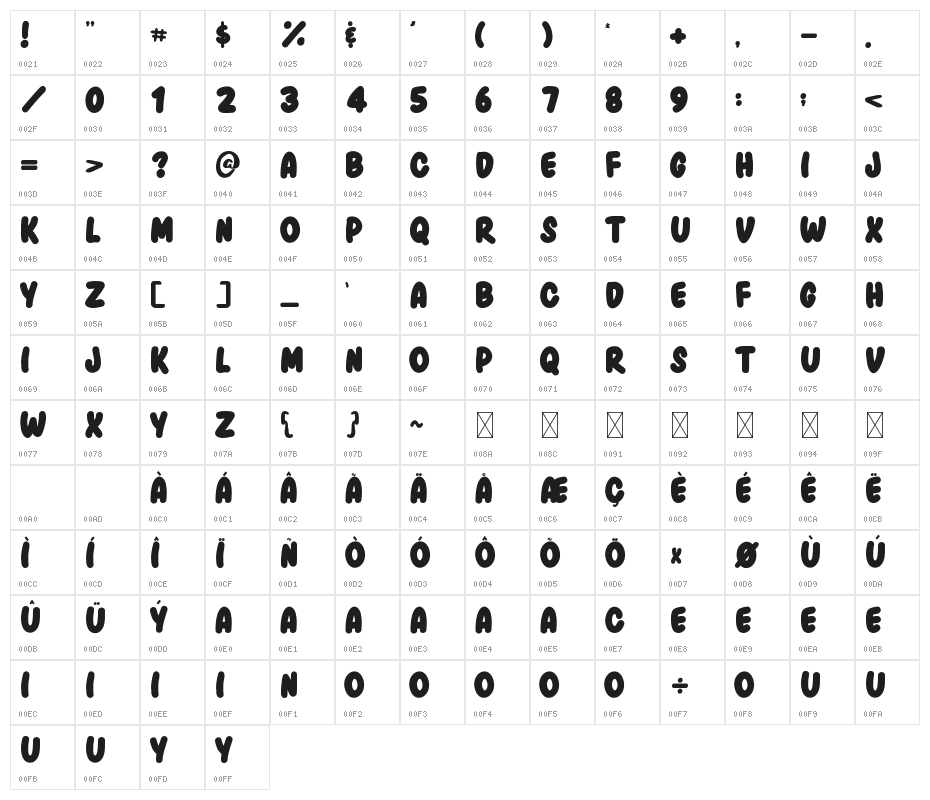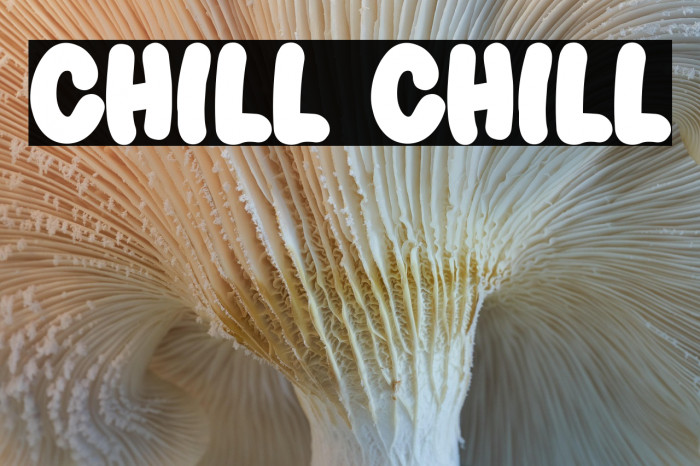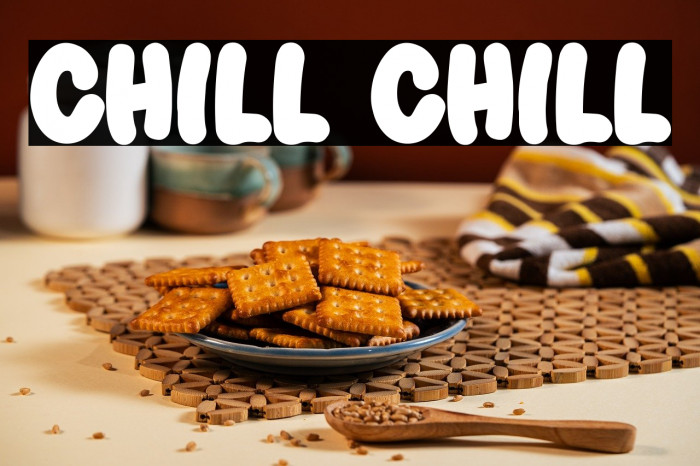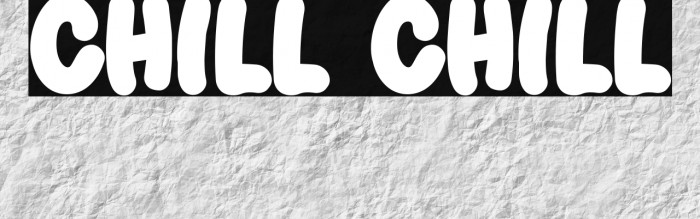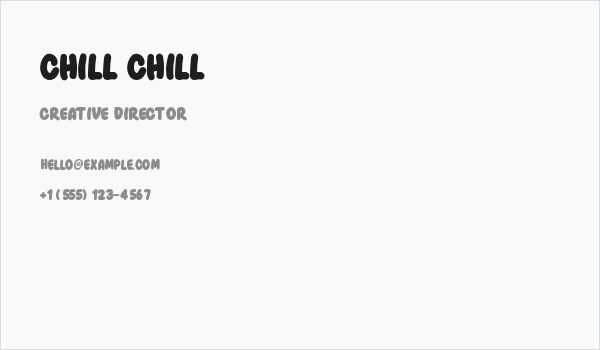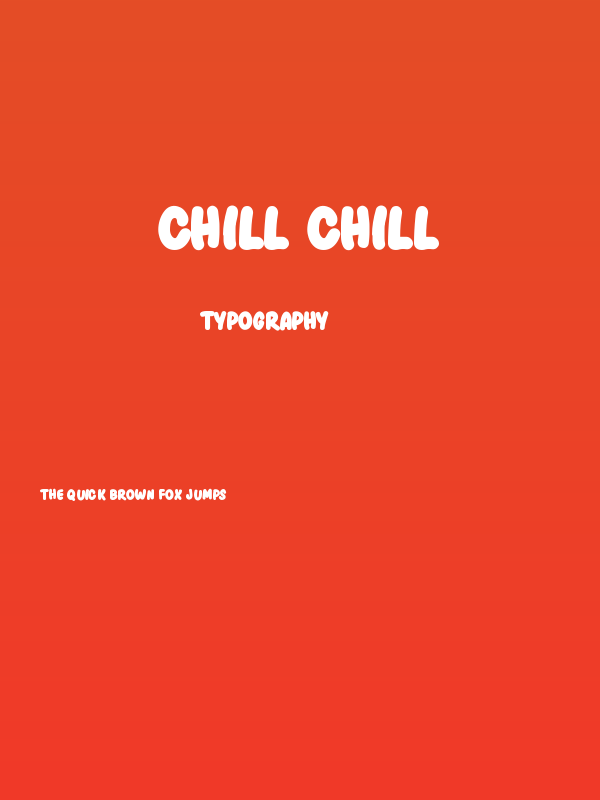
Chill Chill Font
Chill Chill Description
This playful and bold font features rounded, bubble-like characters that exude a sense of fun and whimsy. The letters are thick and uniform, with a consistent stroke width that gives them a solid and substantial appearance. The rounded edges and lack of sharp angles contribute to a friendly and approachable feel. The numbers and special characters maintain the same playful style, ensuring a cohesive look across all text elements. This font is ideal for projects that require a touch of humor and lightheartedness, making it perfect for children's materials, playful branding, or any design that aims to convey a sense of joy and creativity.